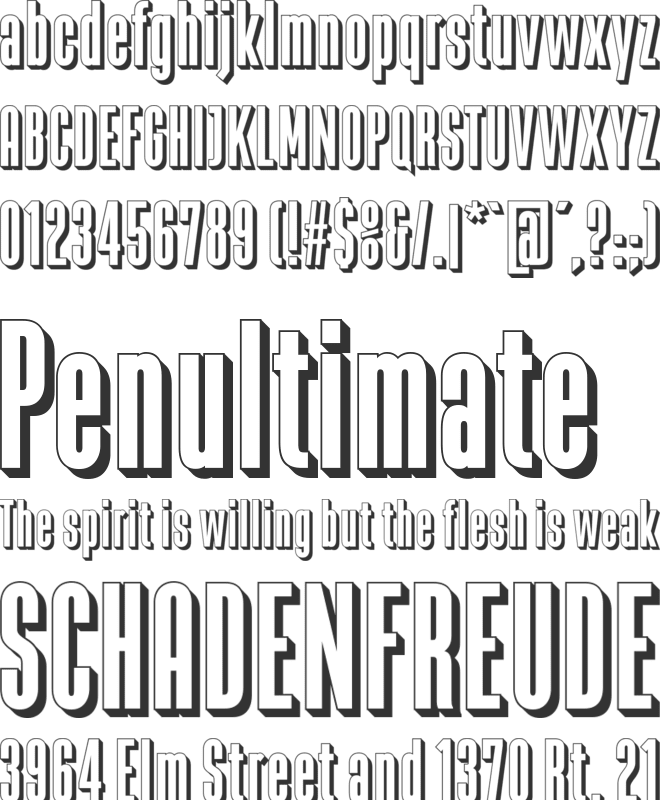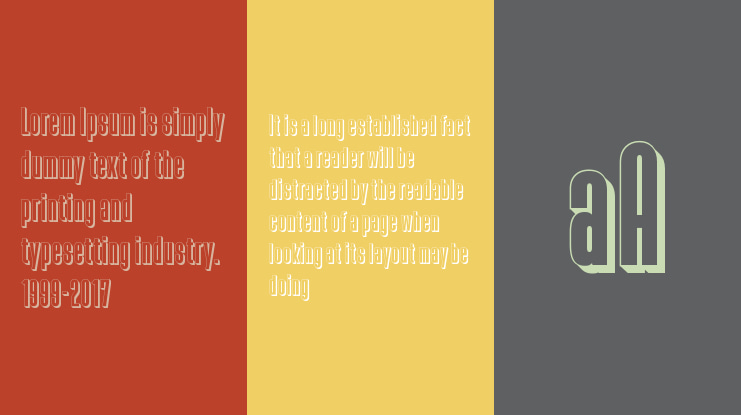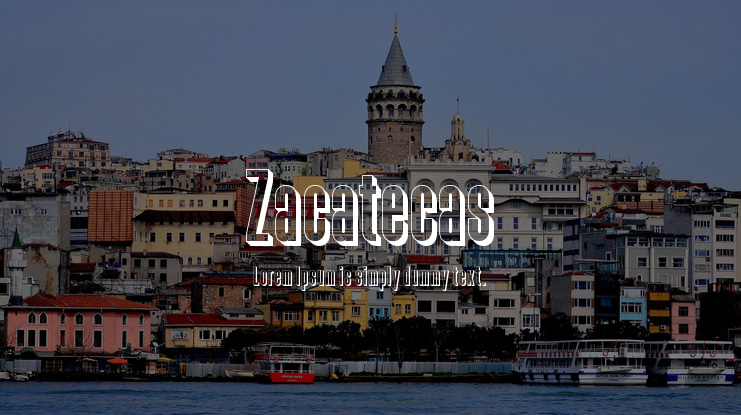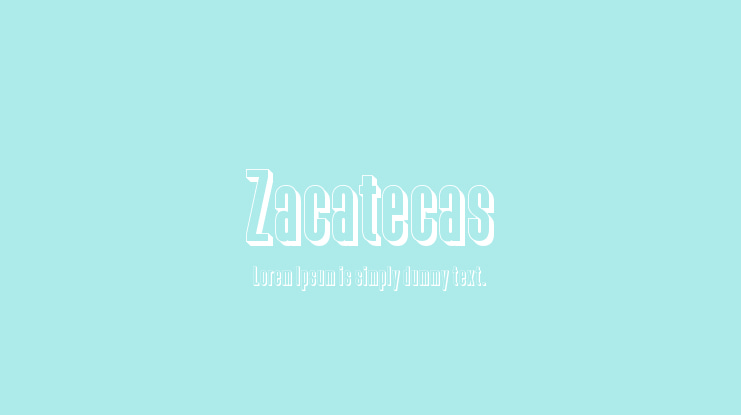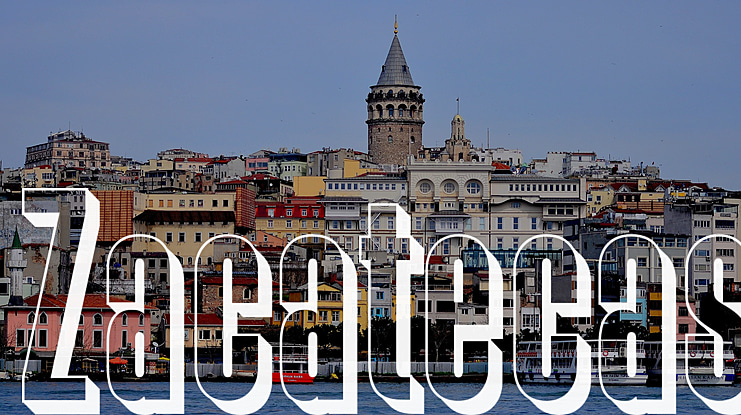
Zacatecas Font
Fernando Haro
Zacatecas is a shadow typeface without serifs and compressed very simple geometric shapes, unadorned sober display font that provides a great space saver for big titles. =========== Download the full version from my website.(560 glyphs) Greek characters Alternative characters Only for personal use. Commercial license available: webfont + OpenType functions: http://defharo.com/fonts/zacatecas-sans-3d/ ===========